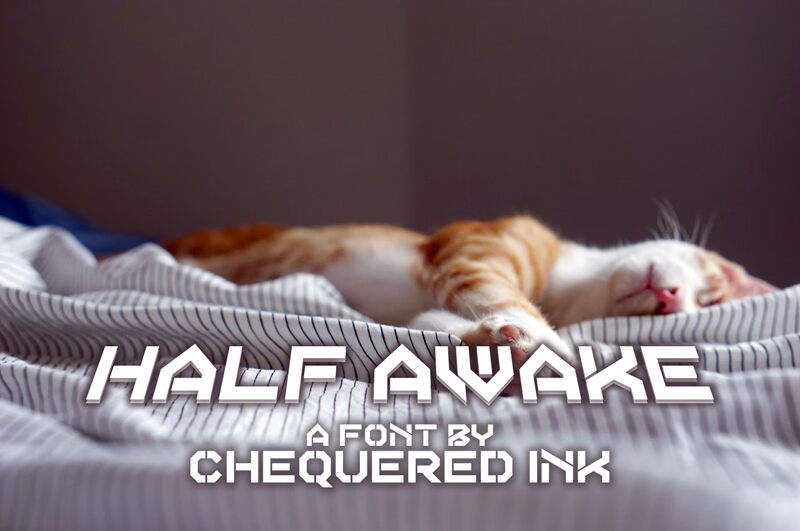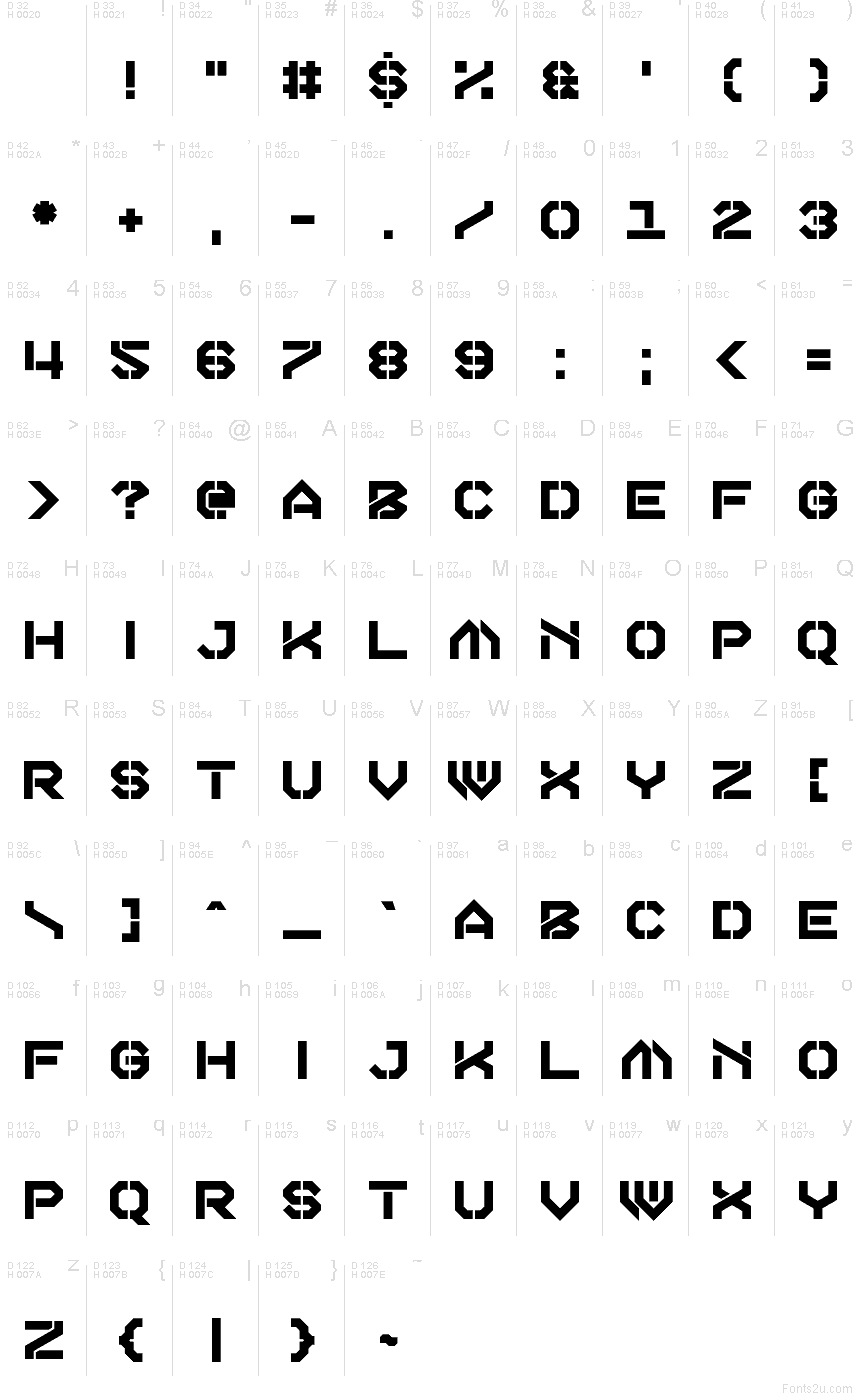
Half Awake
Half Awake font by Chequered Ink is a free military display typeface that hits with the impact of bold stenciling and sharp geometric cuts. Squared forms, tight spacing, and those clipped inner angles give it a hardened, tactical feel—like markings on a futuristic armored vehicle. Set large, the solid blocks and crisp edges read instantly, even at a glance or across a crowded screen.
Using Half Awake, your titles and wordmarks snap into place for FPS game logos, esports branding, tech-war posters, sci-fi book covers, movie key art, and bold merch graphics. This free font shines when you keep messages short and punchy, then pair it with a clean, neutral sans serif for supporting text so the rugged main headline stays in command.